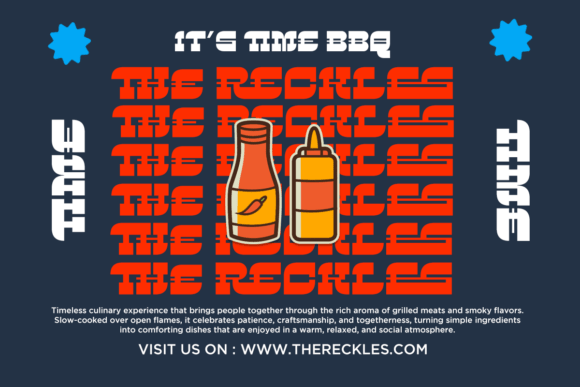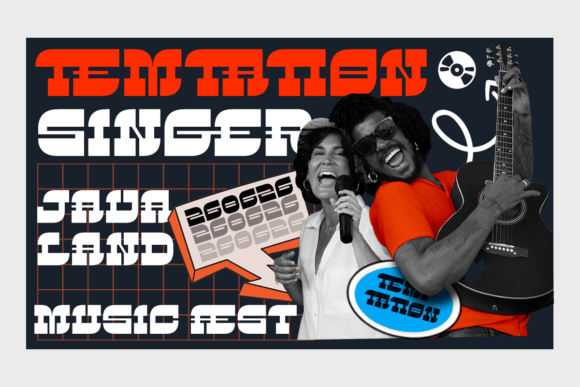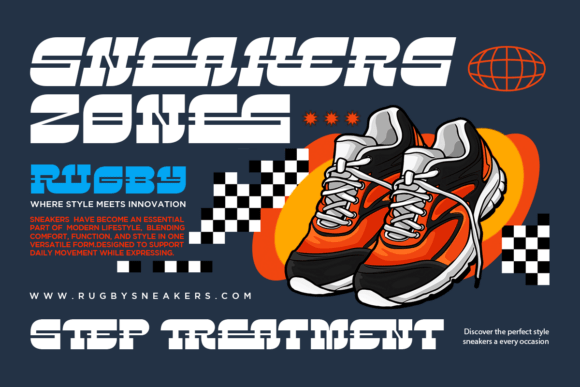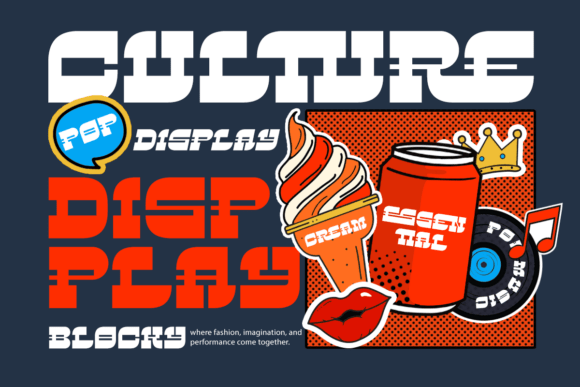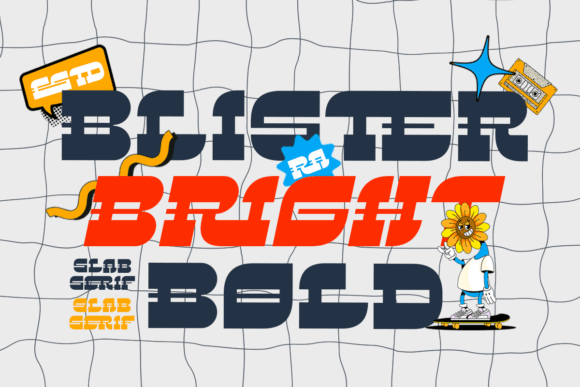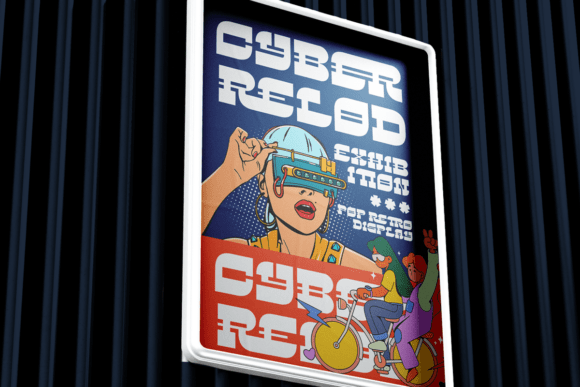
Step into the Retro-Futuristic World of Exmora Font
I’ll never forget the design project that led me to discover Exmora Font. I was working on a logo design for a streetwear label, and I needed a font that would capture the essence of 80s tech and vintage gaming aesthetics. After hours of scouring font libraries, I stumbled upon Exmora Font, and it was love at first sight. The blocky, ultra-wide slab display typeface with chunky, geometric, and playful shapes instantly resonated with my design vision.
What Makes Exmora Font So Special?
Exmora Font is more than just a font – it’s an experience. With its unique horizontal stripes and architectural cutouts, this font commands the entire horizontal plane, making it perfect for bold advertising campaigns, streetwear labels, and tech-focused editorial spreads. The Exmora typeface features over 50 ligatures, allowing for deep customization, making it a dream for logo designers and brand strategists.
An Honest Review of Exmora Font
- ✨ Unique and retro-futuristic design
- ✅ Ultra-wide slab display typeface perfect for bold statements
- 🎉 Over 50 ligatures for deep customization
- 🔥 Perfect for streetwear labels, tech-focused editorial spreads, and bold advertising campaigns
- 🤔 Some users may find the font too bold or overpowering for certain designs
- ⚠️ Limited use on smaller text sizes due to its ultra-wide design
The Designer Inspiration Behind Exmora Font
Exmora Font was inspired by the retro-futuristic world of 80s tech and vintage gaming. The designer, a self-proclaimed retro-tech enthusiast, wanted to create a font that would evoke the nostalgia of old-school video games and futuristic technology. With Exmora Font, you can bring that retro-cool personality to your designs and create a look that’s both nostalgic and ahead of its time.
Q: Is Exmora Font suitable for body text?
A: Due to its ultra-wide design, Exmora Font is best suited for headlines, titles, and short text elements. It’s not recommended for body text or long-form content.